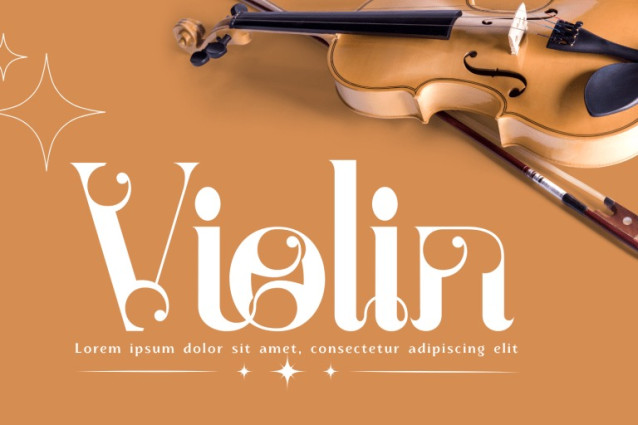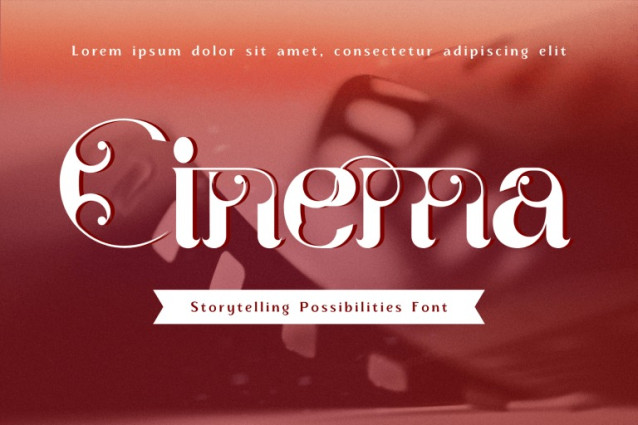
Storytelling Possibilities Font
Storytelling Possibilities – Elegant Serif Font – Elegant Vintage Serif Display Typeface, an elegant vintage serif display typeface inspired by classic editorial typography and refined ornamental lettering. The font features graceful high-contrast strokes, soft curves, and delicately sculpted terminals, enhanced with subtle decorative details that bring a timeless and luxurious character to every letterform. Its flowing structure and carefully balanced proportions create a sophisticated visual rhythm, making the font both expressive and highly readable at display sizes. Storytelling Possibilities perfectly blends old-world charm with modern elegance, ideal for premium branding, fashion editorials, book covers, invitations, packaging, logos, and artistic headlines.
🔤Features:
Uppercase & Lowercase Letters
Around 100 Special Ligatures & Alternates
Accented Characters for multilingual support
🔤About 100 ligatures combined with Stylistic Alternates Font: